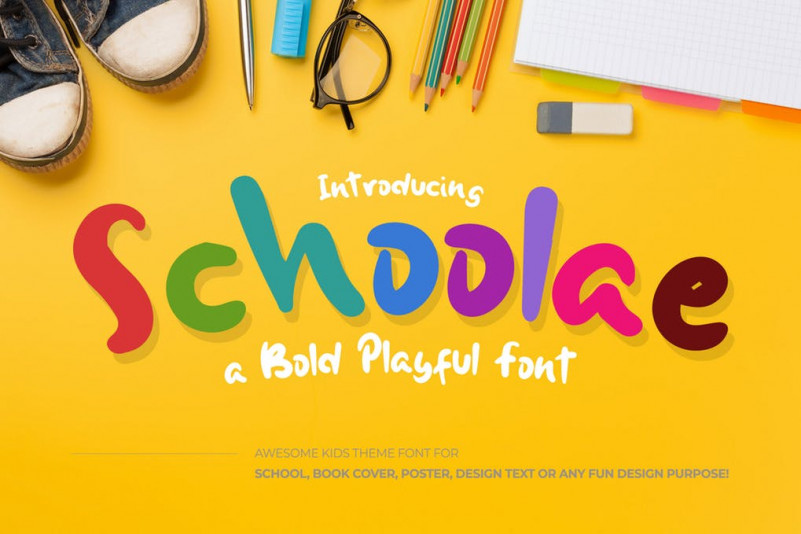
Schoolae Font
Schoolae Font is perfect for educational institution branding, school district communications, academic program materials, student activity campaigns, educational technology platforms, learning center signage, scholarship program designs, educational publishing projects, and academic conference presentations.
What makes Schoolae Font exciting is its scholarly character that embodies the pursuit of knowledge and educational excellence through thoughtfully crafted letterforms that seem designed in the spirit of academic achievement and intellectual growth. The font features balanced proportions with educational-inspired details that evoke the dedication and curiosity found in quality learning environments. Its academic aesthetic and educational authenticity make it perfect for institutions that want to communicate learning excellence, intellectual development, and the transformative power of education while creating memorable experiences that inspire students and celebrate the lifelong journey of discovery and knowledge acquisition.
Schoolae Font family includes various academic weights such as Light, Regular, Medium, and Bold variations, often featuring educational stylistic alternates and scholarly decorative elements. The family may include academic symbols, learning ornaments, and educational ligatures that enhance the font's scholarly aesthetic, providing designers with comprehensive options for creating inspiring typographic compositions that honor educational traditions and celebrate intellectual achievement.
This academically inspiring typeface has gained recognition among educational institutions and learning-focused organizations seeking authentic scholarly typography solutions that reflect educational values and academic excellence. Schoolae Font Free Download provides an excellent opportunity to learn with this educational font before investment. The font's character set includes academic symbols and education-inspired glyphs that work perfectly for educational and learning industry applications. Whether you're designing for schools, universities, or educational technology companies, Schoolae Font delivers the scholarly authenticity your project requires. Its versatile nature makes it suitable for various educational applications including tutoring services, educational publishing, academic conferences, and learning-focused lifestyle brands, ensuring your typography choices communicate educational excellence and intellectual growth while creating memorable brand experiences that celebrate the transformative power of education and the endless possibilities that come from lifelong learning through its distinctively scholarly and authentically educational visual character.